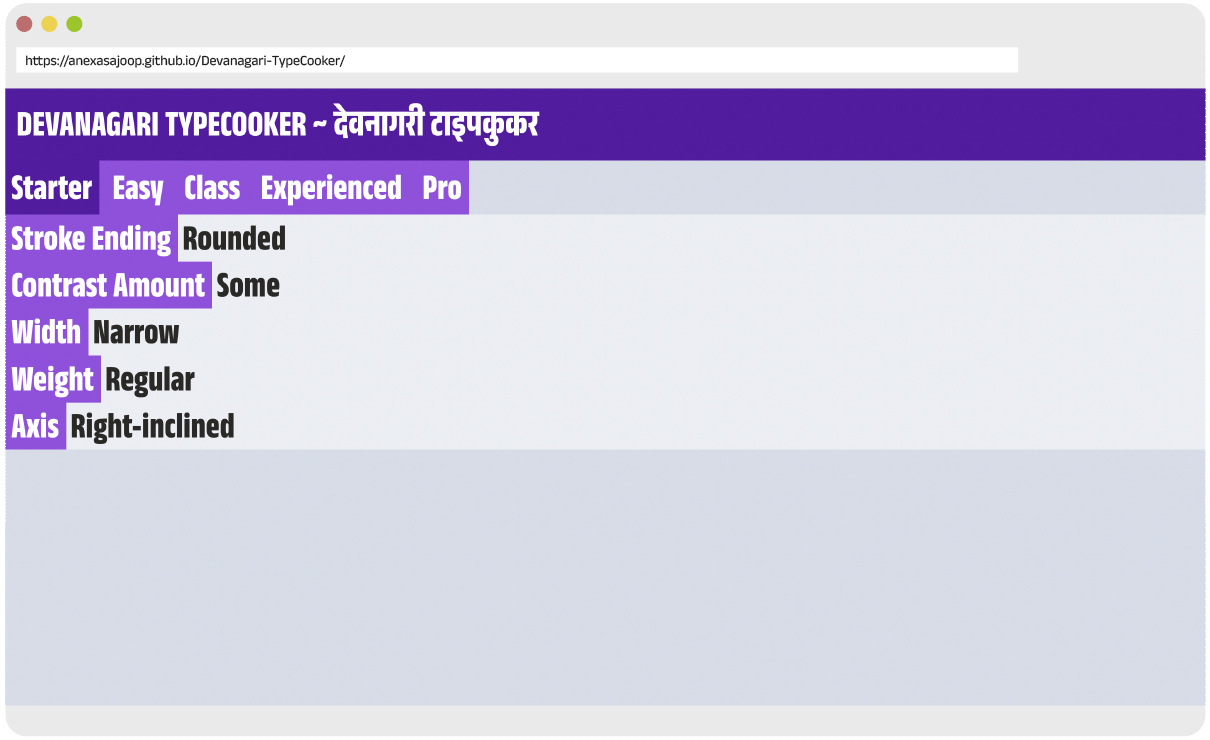
Devanagari Typecooker is a tool to generate ideas to draw Devanagari letters by exploring the boundaries of their formal features. It is built on the foundation of Erik van Blokland’s TypeCooker for the Latin script.
Devanagari TypeCooker is a simple online contraption that produces “recipes”, or a list of formal parameters related to typographic shapes, which can be used as a starting point to draw letterforms. While they may appear random, the parameters have been carefully chosen after a survey of Devanagari typefaces and lettering samples, and offer opportunities to contemplate the script’s letterforms in imaginative ways. The recipes can be of increasing levels of complexity, offering apposite challenges to novice as well as experienced practitioners. You can read about the making of Devanagari TypeCooker and how its parameters were chosen here.